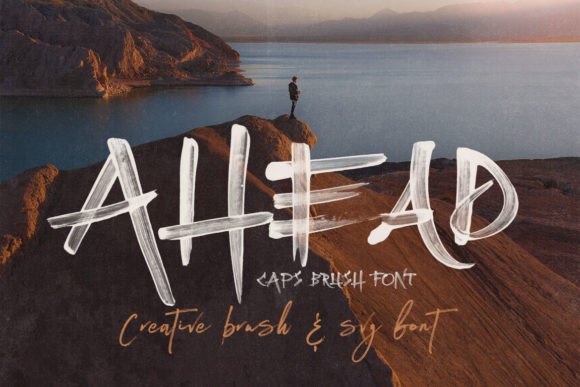
Introducing Ahead Font, a masterpiece created by JumboDesign, specifically designed for those seeking the perfect font to enhance their mini LED displays. Get ready to be captivated by the enchanting allure and artistic brilliance of Ahead.
This display font is a true work of art, meticulously crafted with fluid brushstrokes and bold, expressive lines that effortlessly bring your designs to life. Its impeccable detailing captures the essence of hand-painted lettering, ensuring that each character possesses a distinctive charm that cannot be replicated.
When you choose Ahead, you're not just getting a font – you're unlocking a world of endless possibilities. Its versatility allows it to seamlessly adapt to any design theme or style, making it the ultimate companion for your creative endeavors. Whether you're designing captivating advertisements, stunning web graphics, or eye-catching signage, Ahead will elevate your creations to new heights.
Embrace the power of uniqueness with Ahead Font. No two characters are alike, as subtle variations within each letter add depth and personality to your designs. Stand out from the crowd and make a lasting impression with this font that exudes exclusivity and sophistication.
Immerse yourself in the captivating journey Ahead Font offers. Feel the surge of inspiration as you witness the perfect fusion of creativity and functionality. Its impeccable legibility ensures that your message is conveyed effortlessly, captivating your audience and leaving a lasting impression.
Transform your mini LED displays into captivating masterpieces that command attention and evoke emotions. Get Ahead Font today and embark on a design journey like no other.